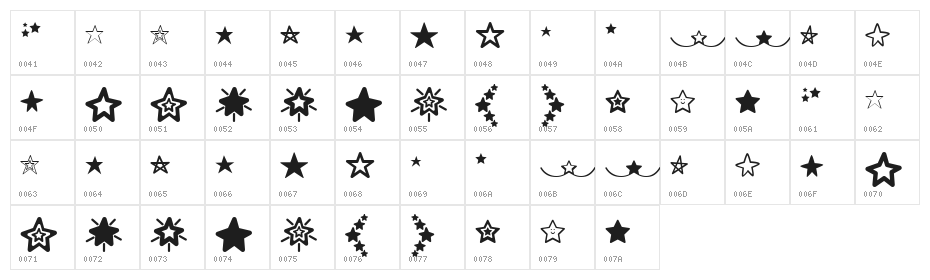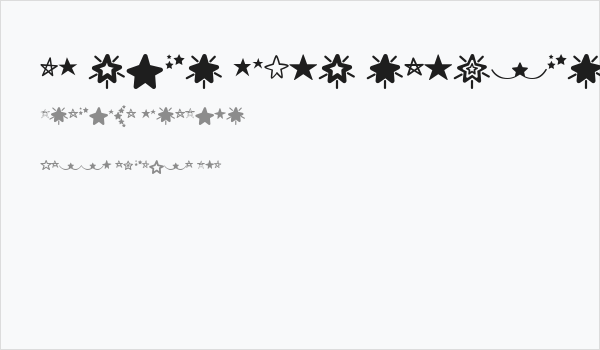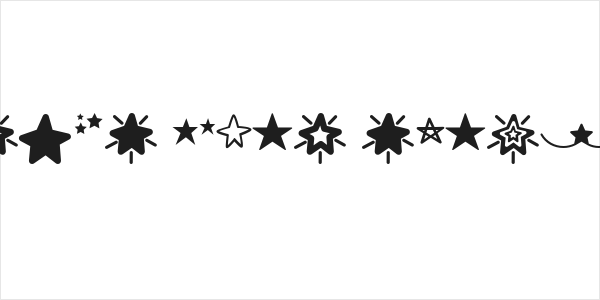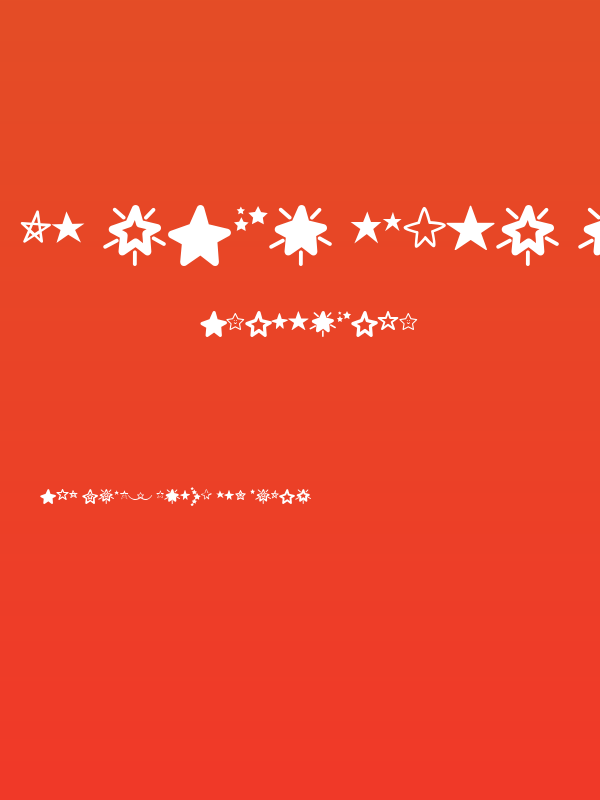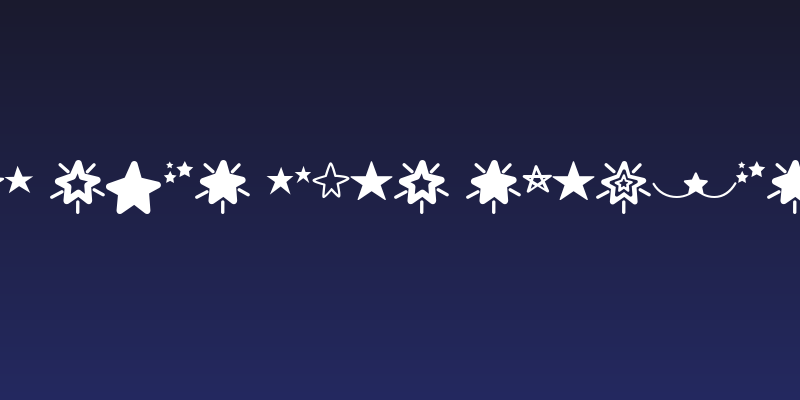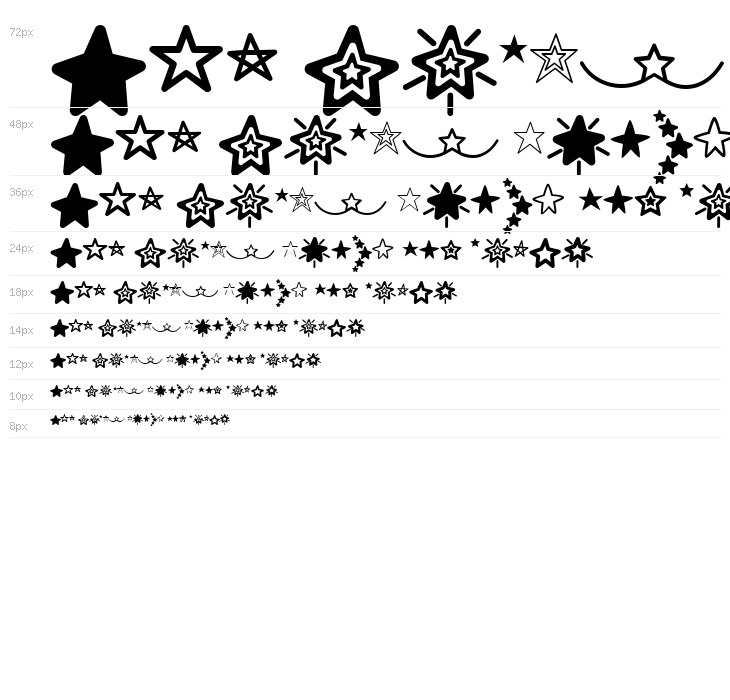
MF Star Dings Regular Font
MF Star Dings Regular Description
This decorative font features a variety of star-themed symbols, including outlines, filled stars, and stars with different embellishments. The designs are playful and whimsical, making them ideal for creative projects. The stars vary in size and style, offering a diverse range of options for embellishing designs. The font is not intended for traditional text but rather for decorative purposes, adding a unique and fun element to any project. The symbols are bold and clear, ensuring they stand out in any design context.
| Use Case | Logos, Decorative elements |
| Proposed Projects | Ideal for party invitations, scrapbooking, children's book illustrations, and festive decorations. |